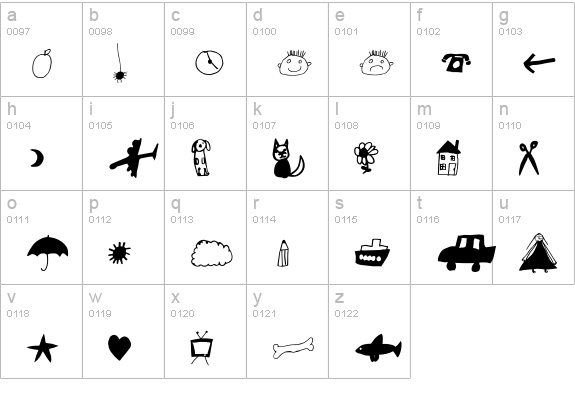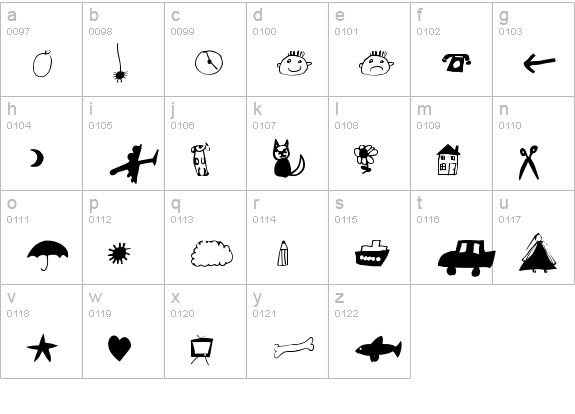
ChildsPlay-Dingbats Font Details
ChildsPlay-Dingbats font is a whimsical and playful typeface that is perfect for adding a touch of fun and creativity to your designs. This font features a collection of charming and quirky dingbat characters that will bring a smile to your face. Whether you're working on a children's book, birthday invitation, or any other project that calls for a touch of whimsy, ChildsPlay-Dingbats font is sure to delight. The best part is that ChildsPlay-Dingbats font is completely free to download at FontsMarket.com. With just a few clicks, you can add this delightful font to your collection and start incorporating its charming characters into your designs. So why wait? Download ChildsPlay-Dingbats font today and let your imagination run wild!